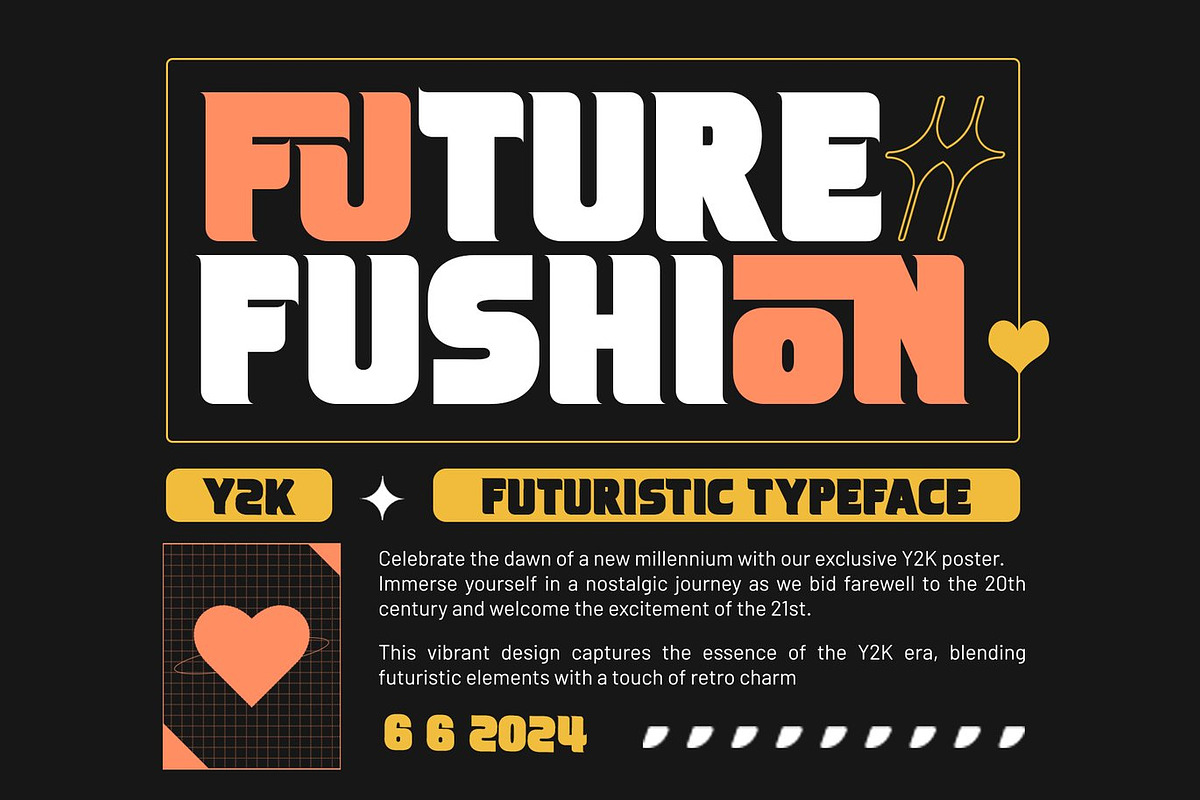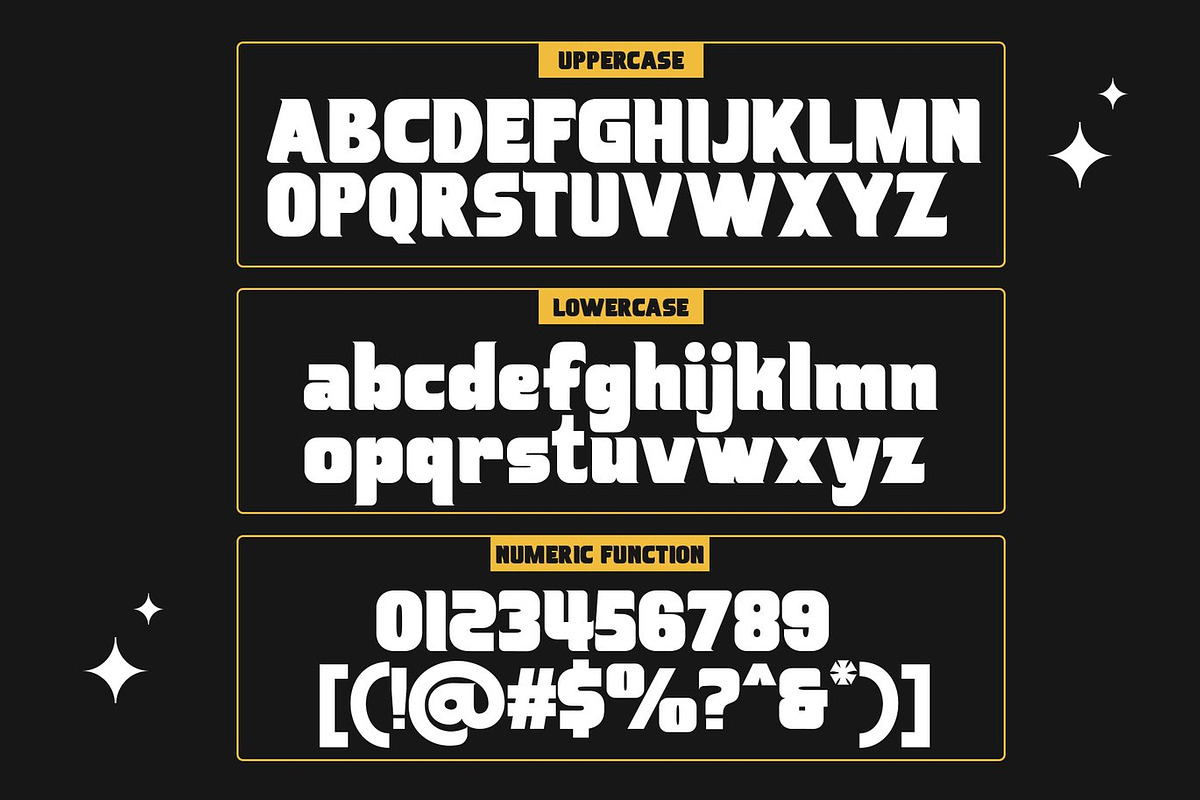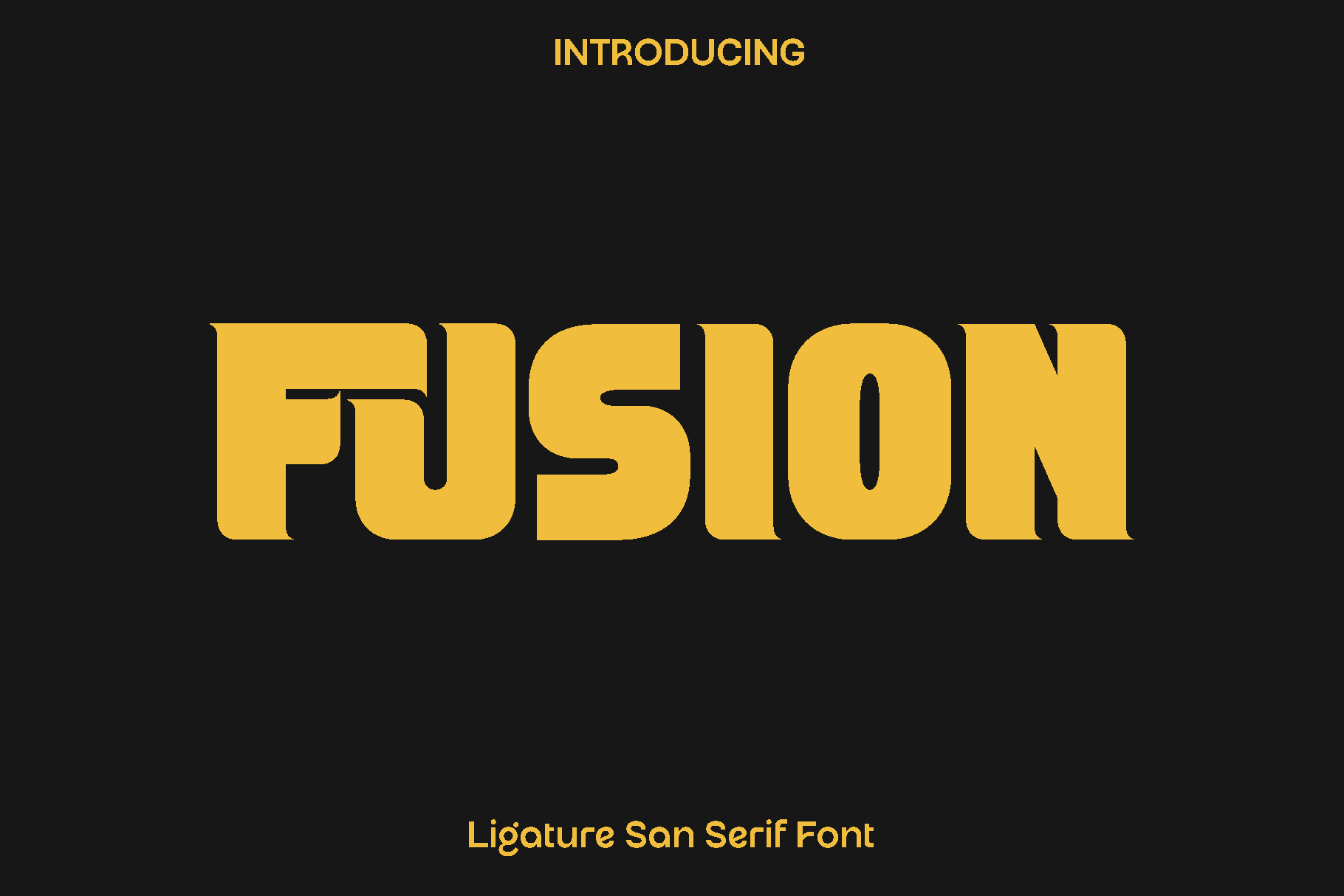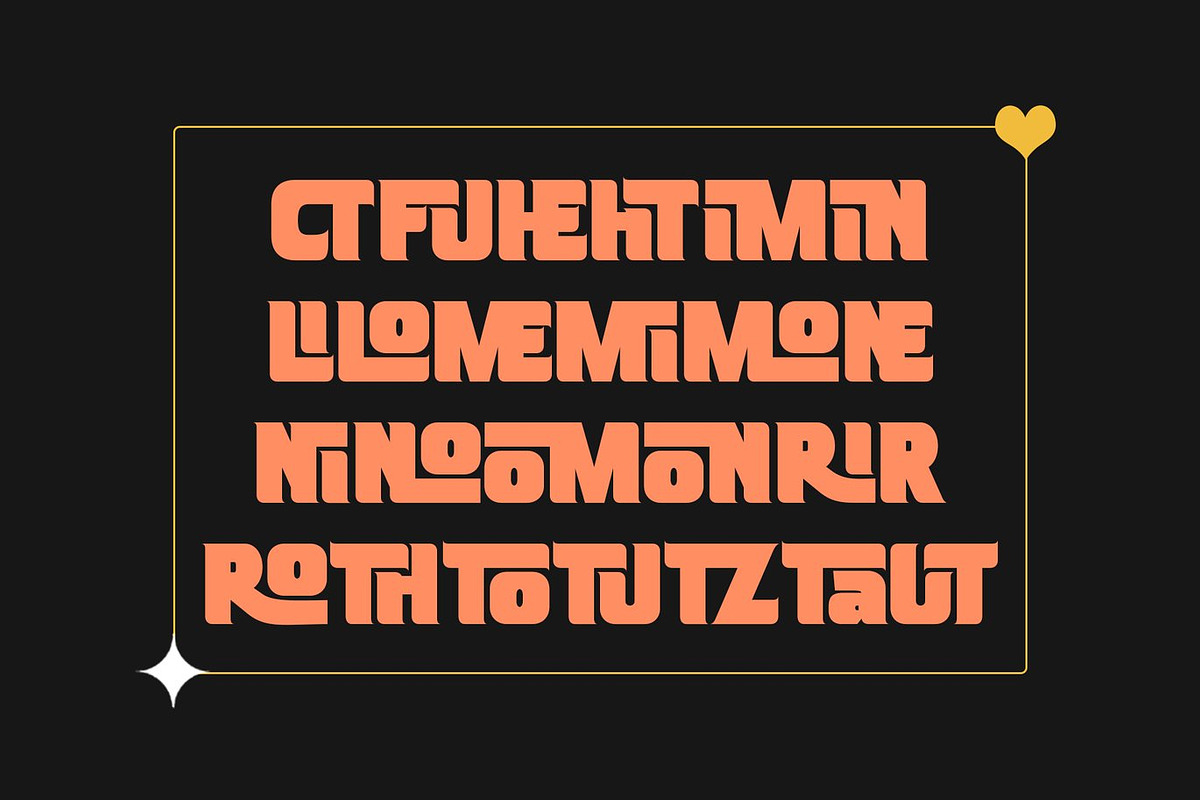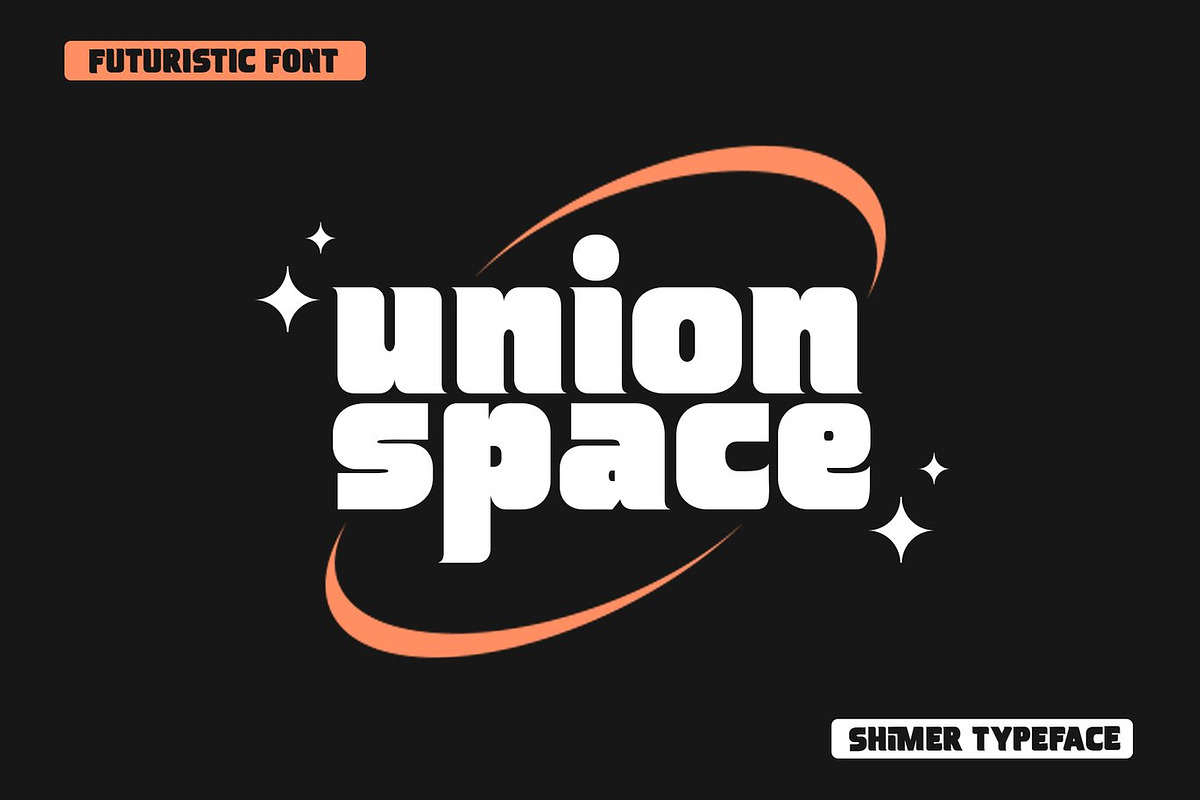
Fusion - Ligature San Serif Font
Fusion is a modern typeface designed to bring harmony, clarity, and creative energy into your projects. Inspired by the idea of blending strong structure with refined detail, Fusion unites contemporary style with practical functionality. Its balanced proportions and clean letterforms create a confident presence that feels both professional and expressive.
Crafted for versatility, Fusion adapts beautifully across a wide range of design needs. It shines in book covers, magazine layouts, branding projects, logos, photography overlays, blog headers, posters, and advertising campaigns. Whether you are creating bold headlines or elegant body text, Fusion maintains readability while delivering a polished and modern aesthetic.
Fusion feels confident, stylish, and adaptable. It is ideal for designers who want a typeface that performs consistently across print and digital platforms. From editorial spreads to social media graphics, Fusion enhances visual storytelling with clarity and sophistication. Its thoughtful construction ensures smooth letter spacing and a seamless reading experience, making it suitable for both creative and corporate applications.
Designed to support multilingual communication, Fusion expands your creative possibilities while keeping your typography cohesive and refined. Add Fusion to your collection and experience a typeface that truly brings ideas together with style and purpose.
Fusion Font Features:
• Uppercase and lowercase characters
• Numerals and functional punctuation
• Ligature features for refined typography
• Multilingual support